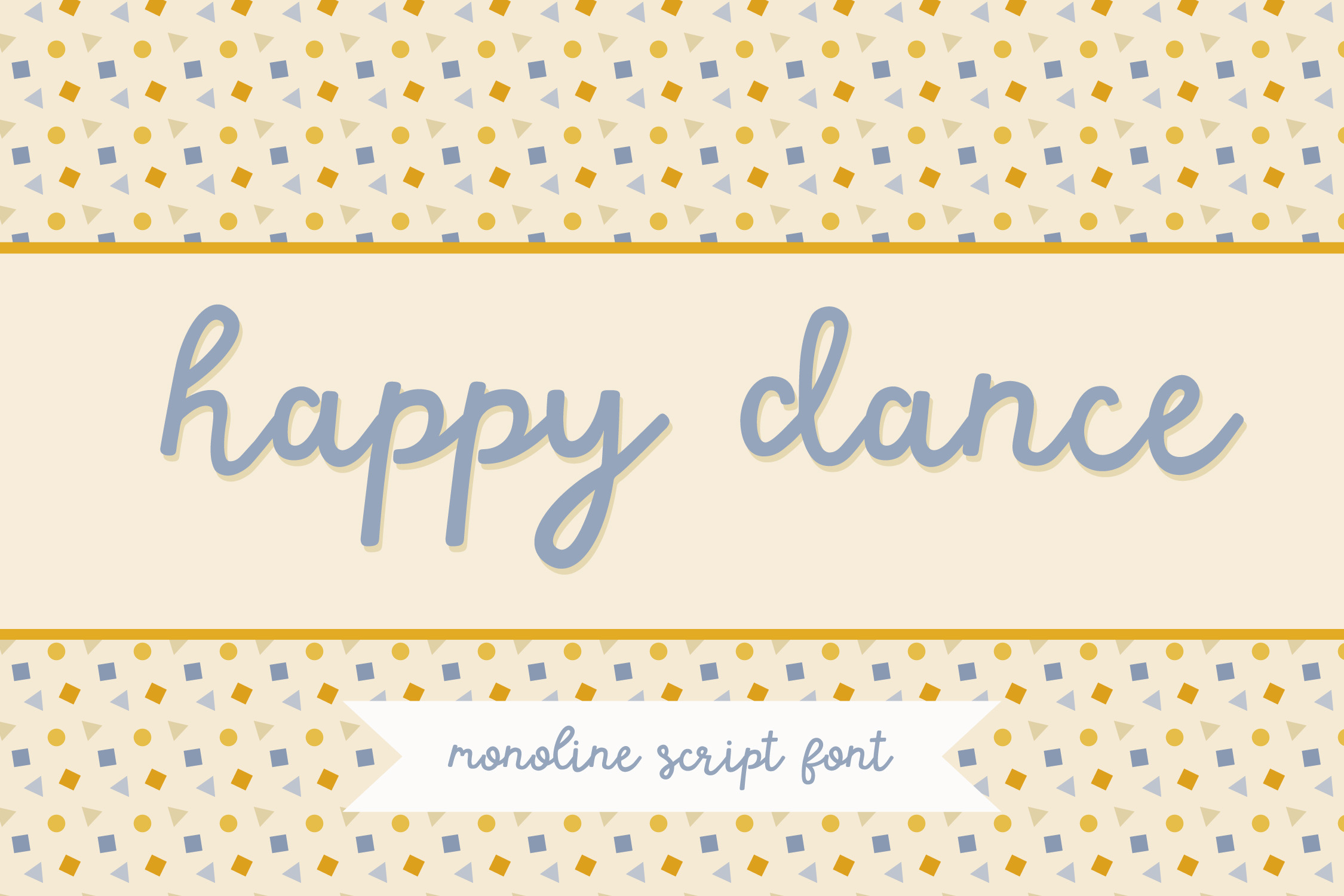
Happy Dance Monoline Script Font
Do your happy dance! This fun script font is hand drawn and carefully cleaned to reduce the number of nodes. Happy Dance includes lowercase script, uppercase characters, numbers, punctuation, and multilingual characters.
Happy Dance is cute, flirty, and sweet. It is great for branding, packaging, crafting, social media, or whatever you can dream up!